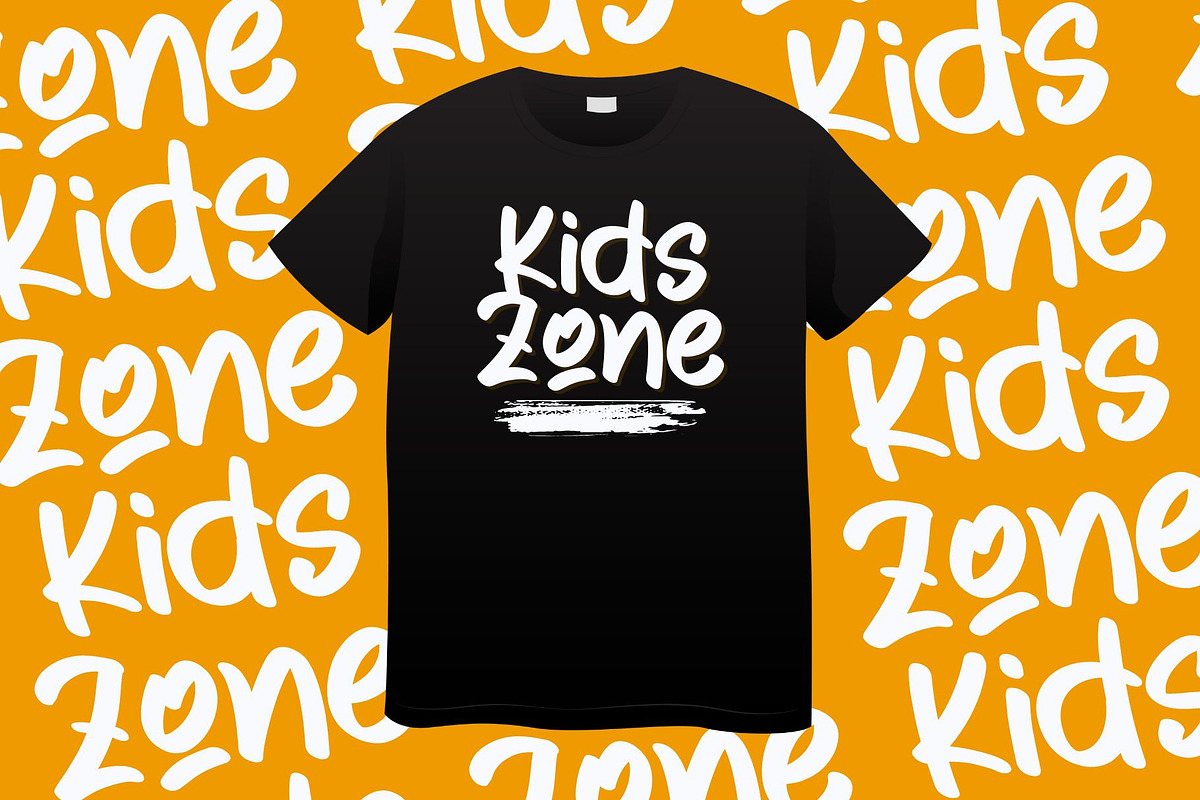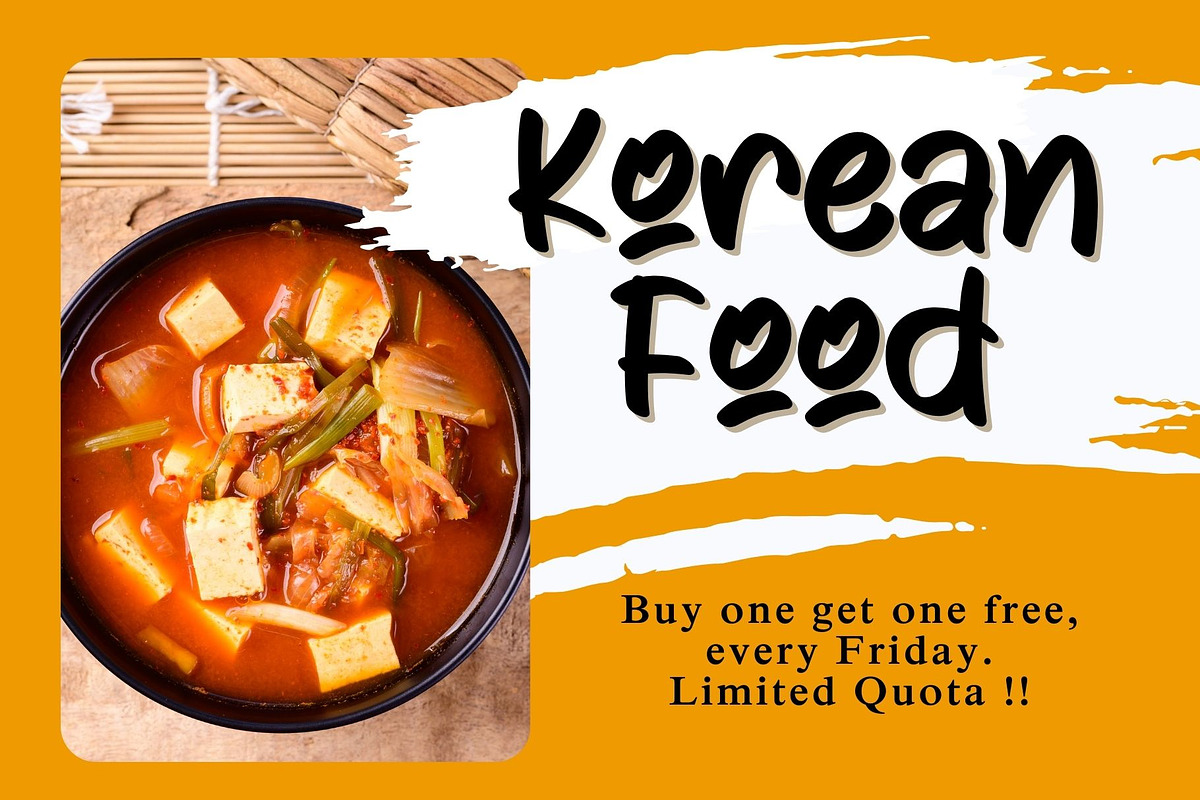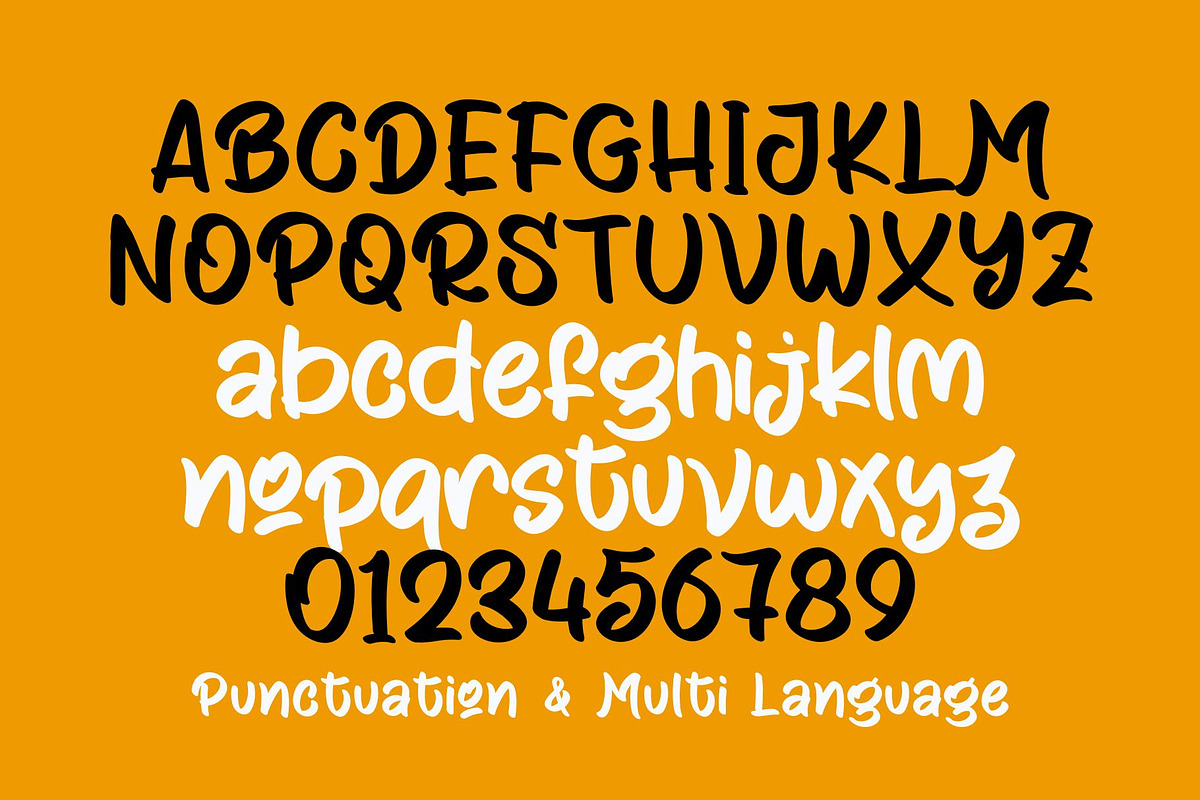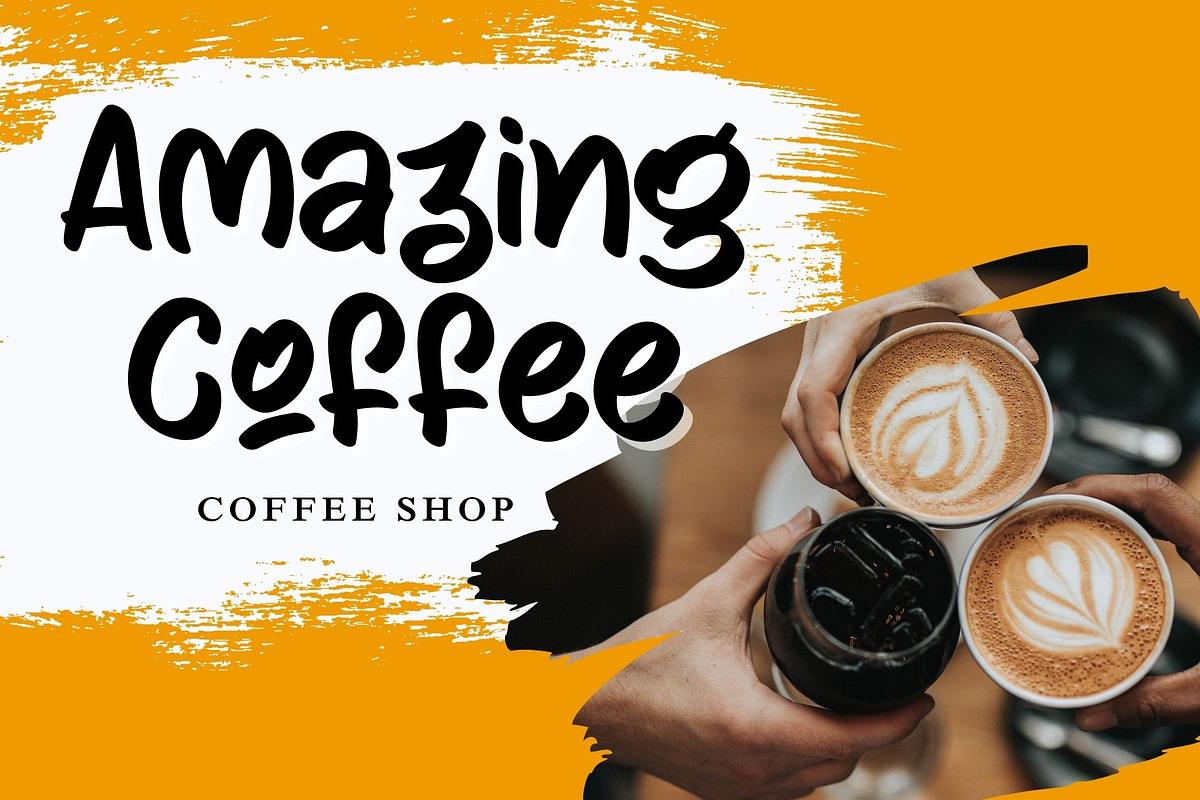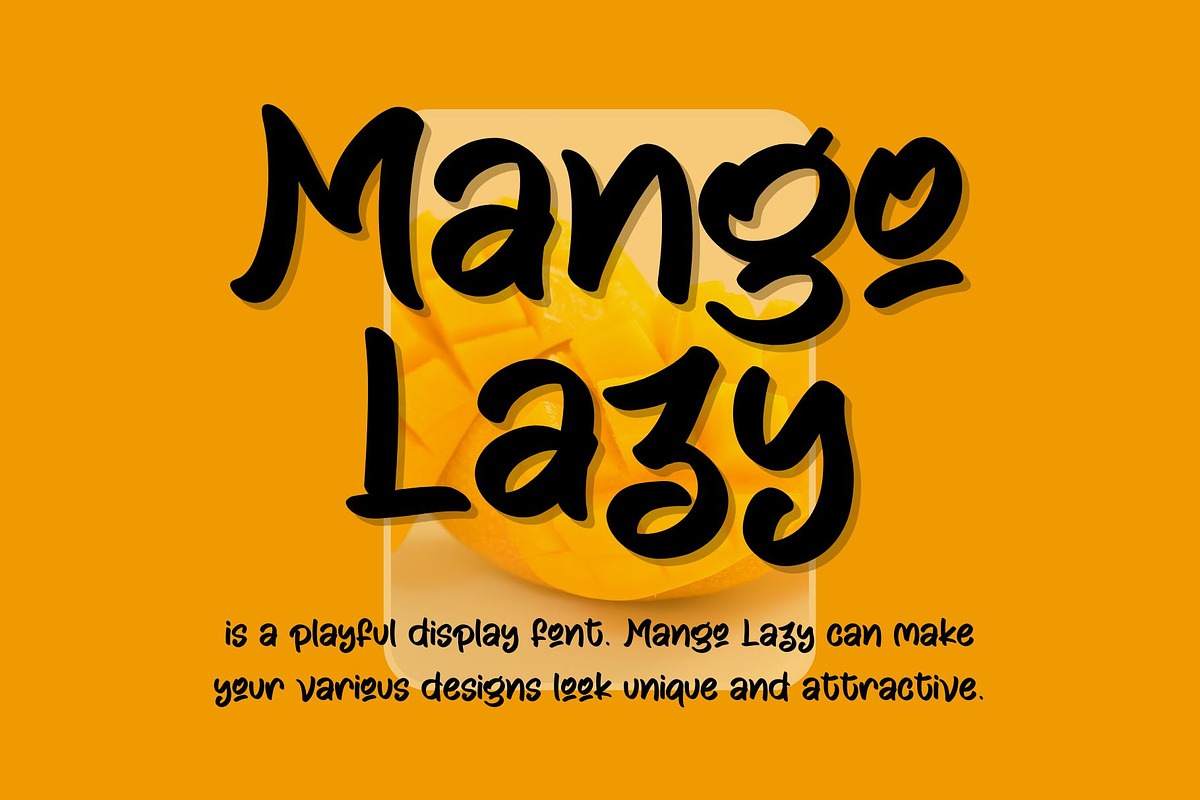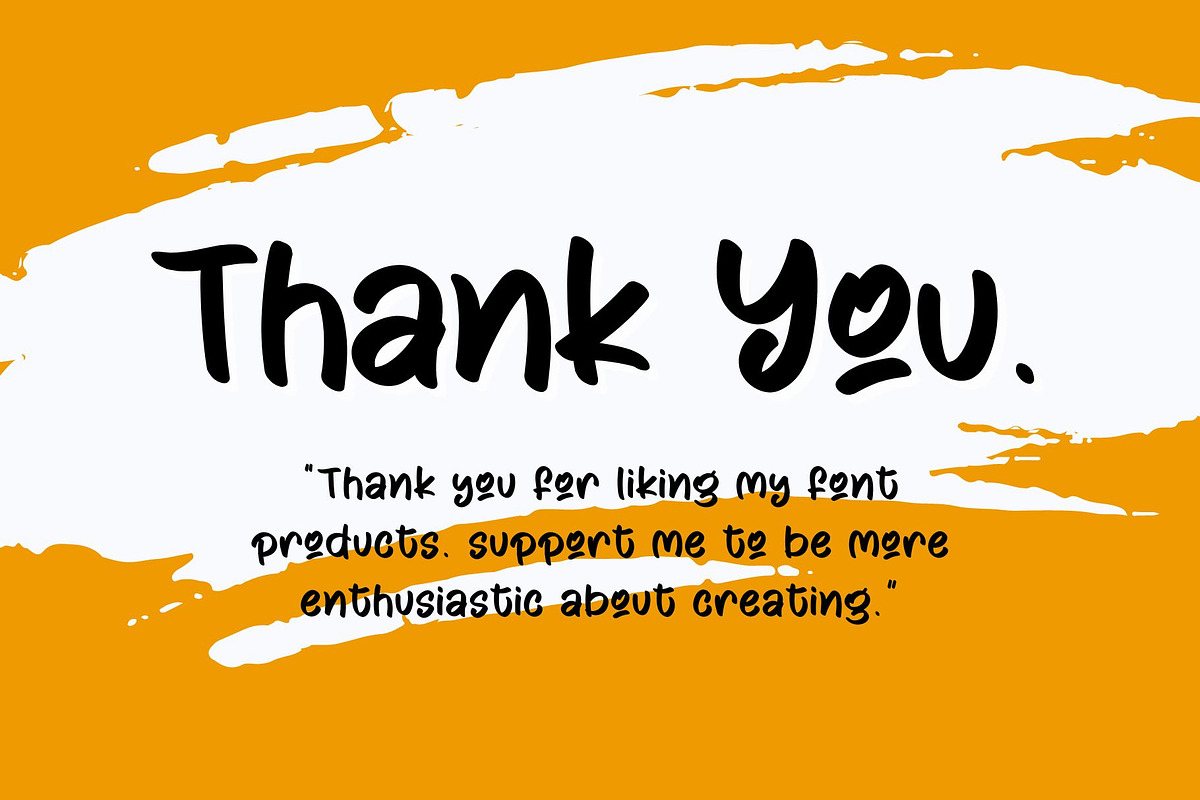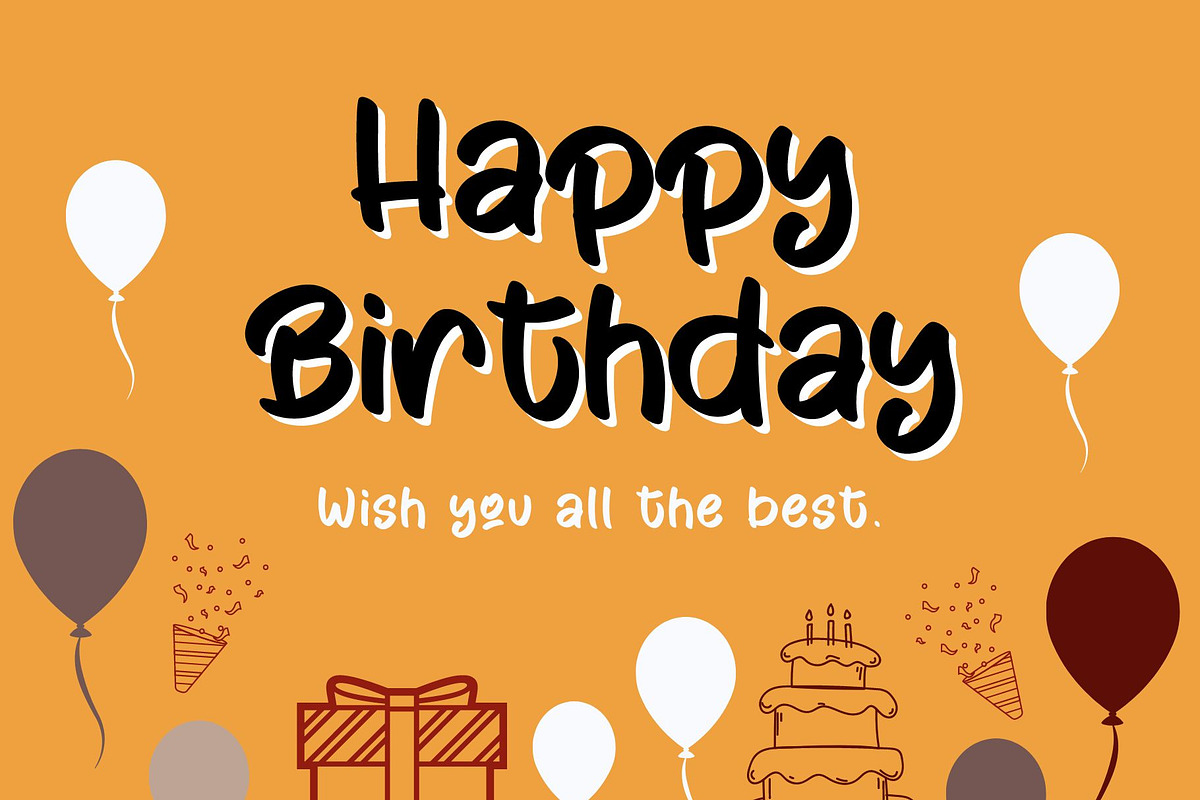
Mango Lazy
Add a splash of fun and charm to your design collection with "Mango Lazy" - a whimsically vibrant display font. Engage your audience with Mango Lazy's distinctive aesthetic, making every project standout. Enliven your design language and let your creativity reach new heights with its playful fidelity. From whimsical websites to captivating marketing materials, Mango Lazy adds that irresistible allure to any design undertaking. Enhance your work's visual narrative and let your imagination run wild with Mango Lazy.